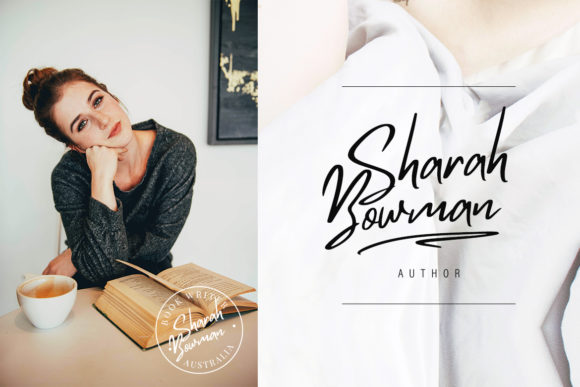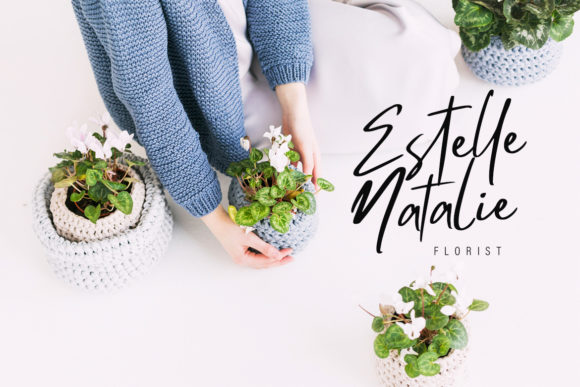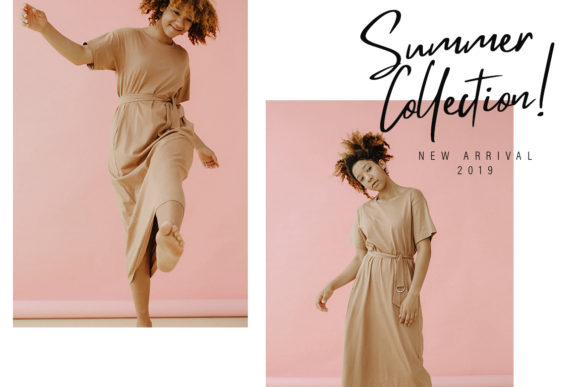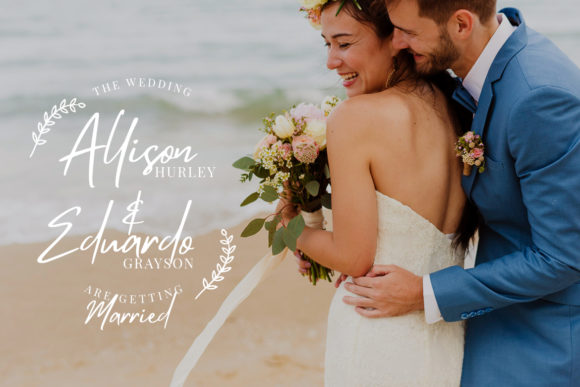
Introduction to Mistrully Script Font
The Mistrully is an unique fashion style brush script.
It has a handwritten style and includes amazing swashes to give your design an unique touch It’s perfect for branding projects, logos, wedding designs, social media posts, advertisements, product packaging, and every other design which needs a handwritten touch.
Key Features of Mistrully Script Font
Mistrully Script Font offers exceptional quality and versatility, making it a valuable addition to your design toolkit. Whether you’re creating for personal projects or commercial use, Mistrully Script Font delivers professional results.